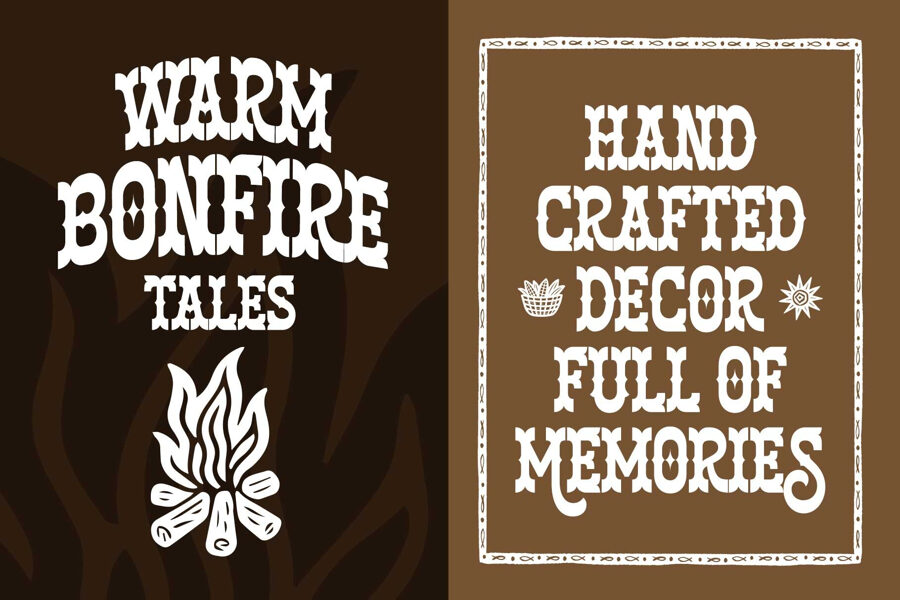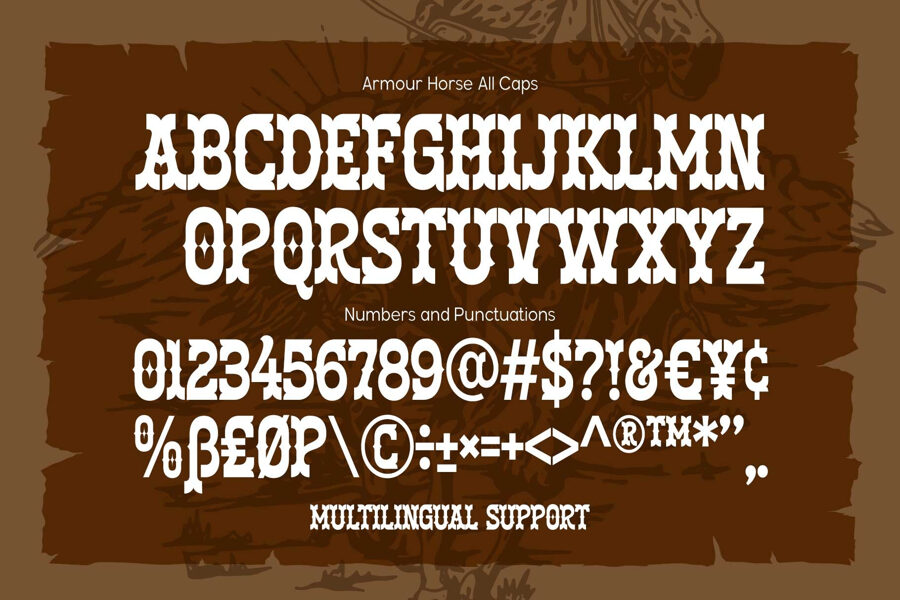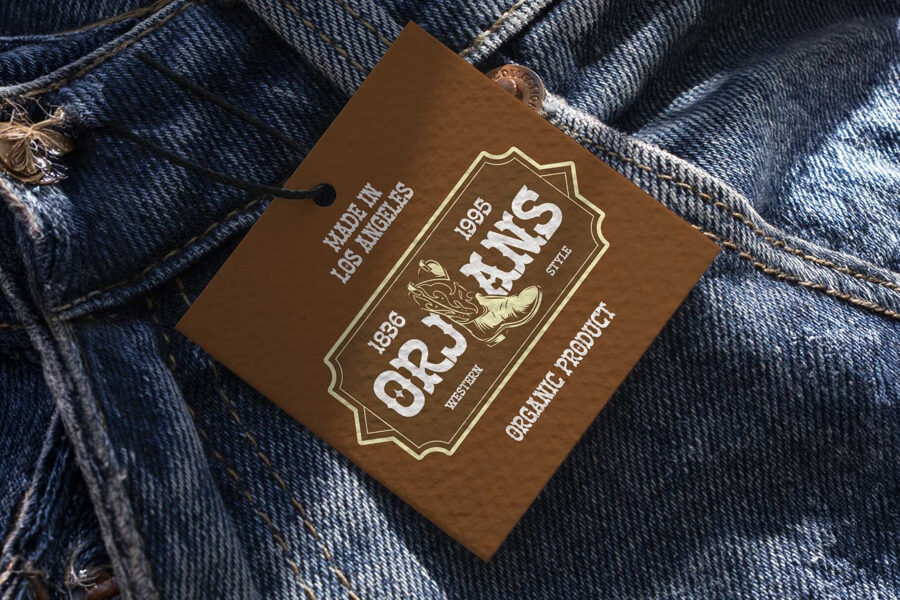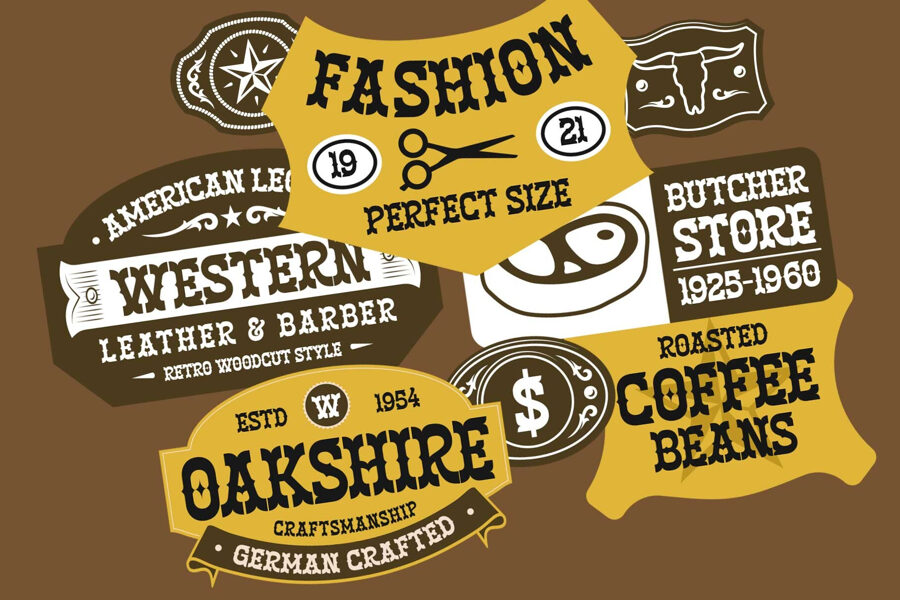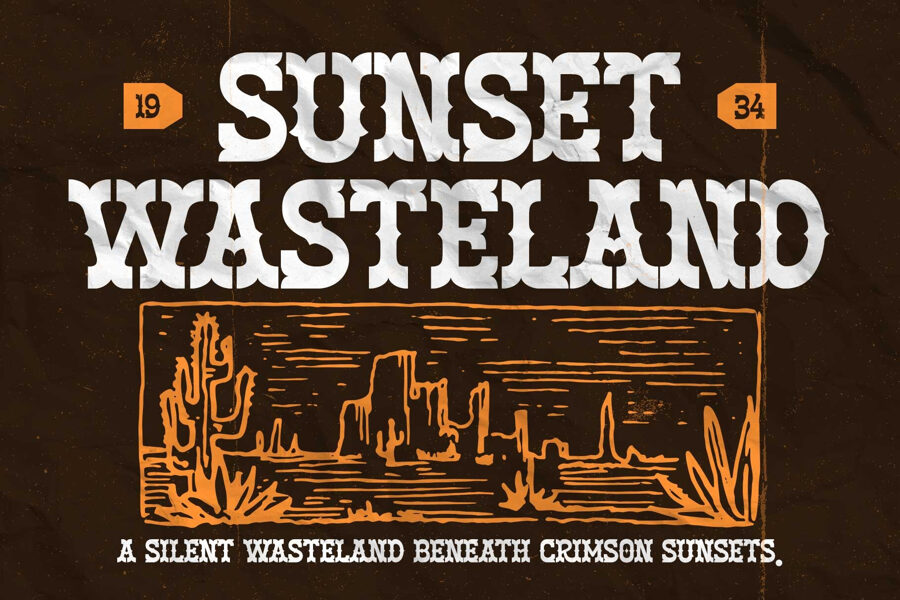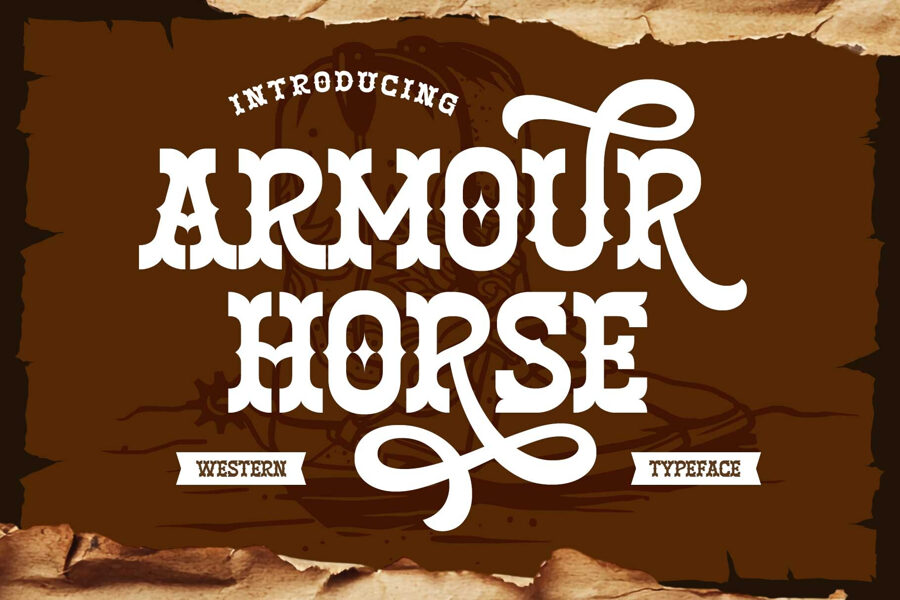
Armour Horse Font
Armour Horse is a bold western display typeface inspired by cowboy culture, rodeo traditions, frontier towns, and vintage wood-type lettering. Built with strong serif foundations, decorative spurs, and distinctive reverse-contrast details, this font delivers an authentic Wild West character while maintaining excellent readability.
Its rugged yet elegant appearance makes it perfect for creating eye-catching headlines, vintage logos, labels, ranch branding, packaging, posters, apparel, signage, and other western-themed designs.